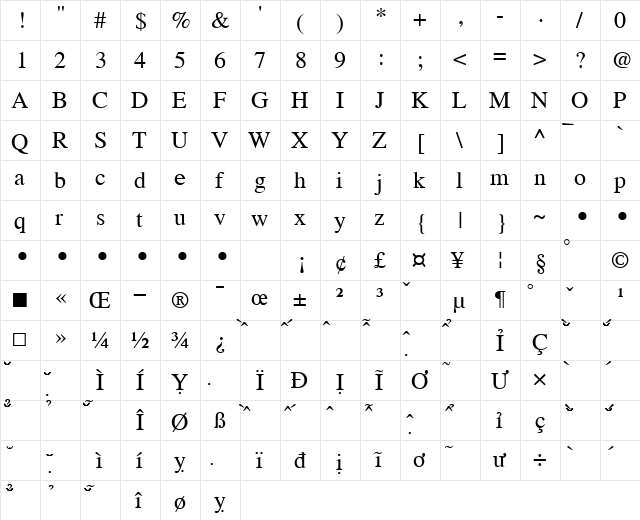
VN-NTime Normal
Design Context for VN-NTime Typeface
VN-NTime is a composed and adaptable typeface that performs quietly and consistently across a wide range of design contexts.